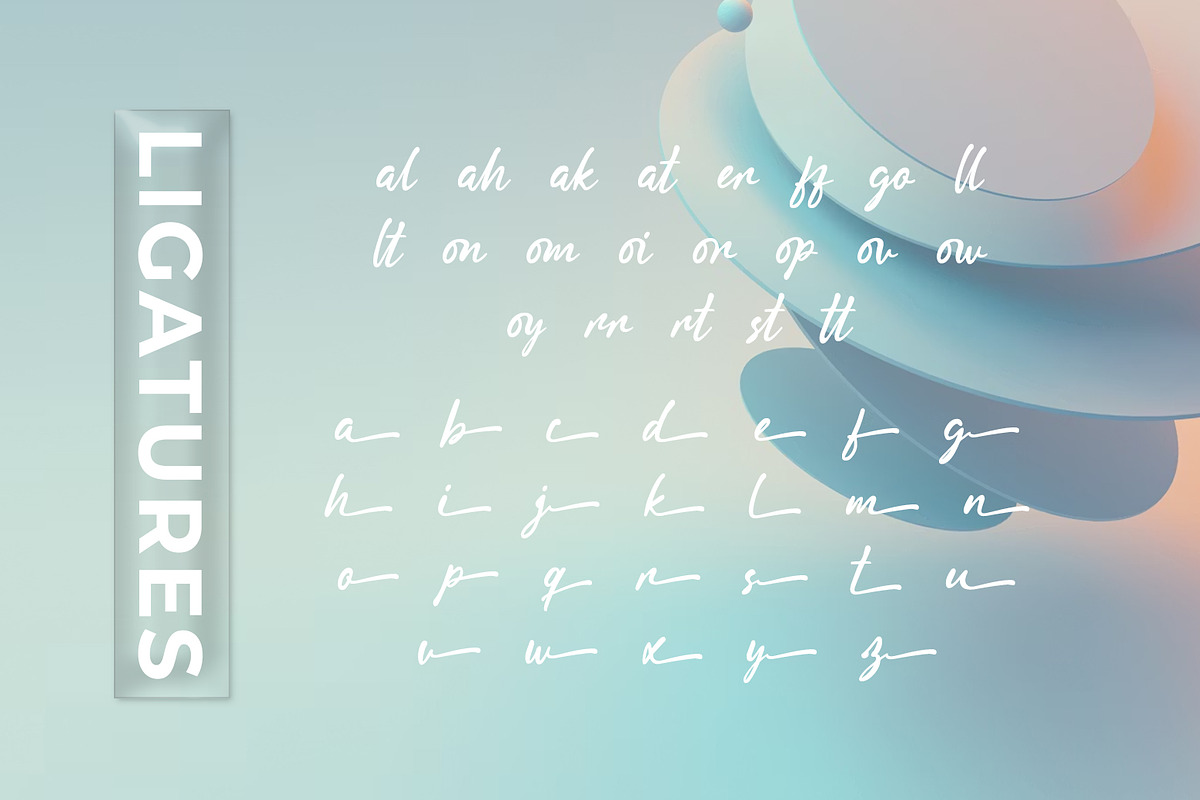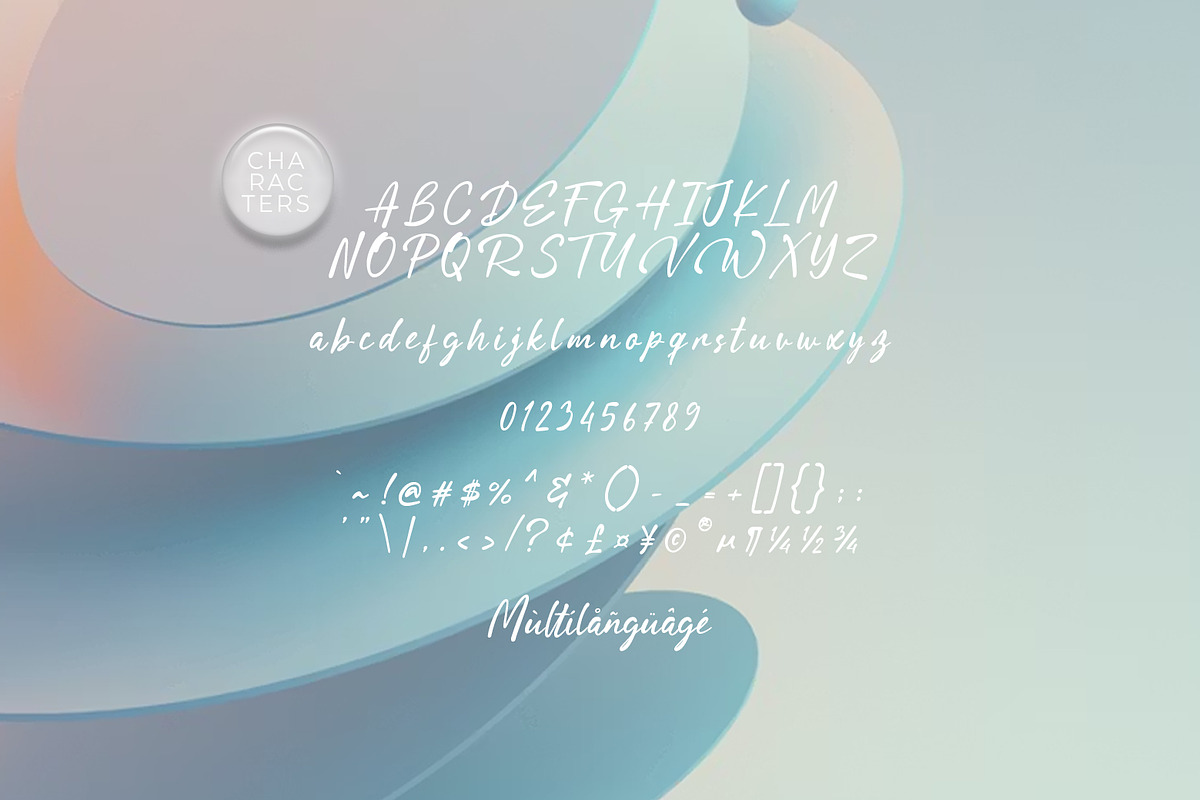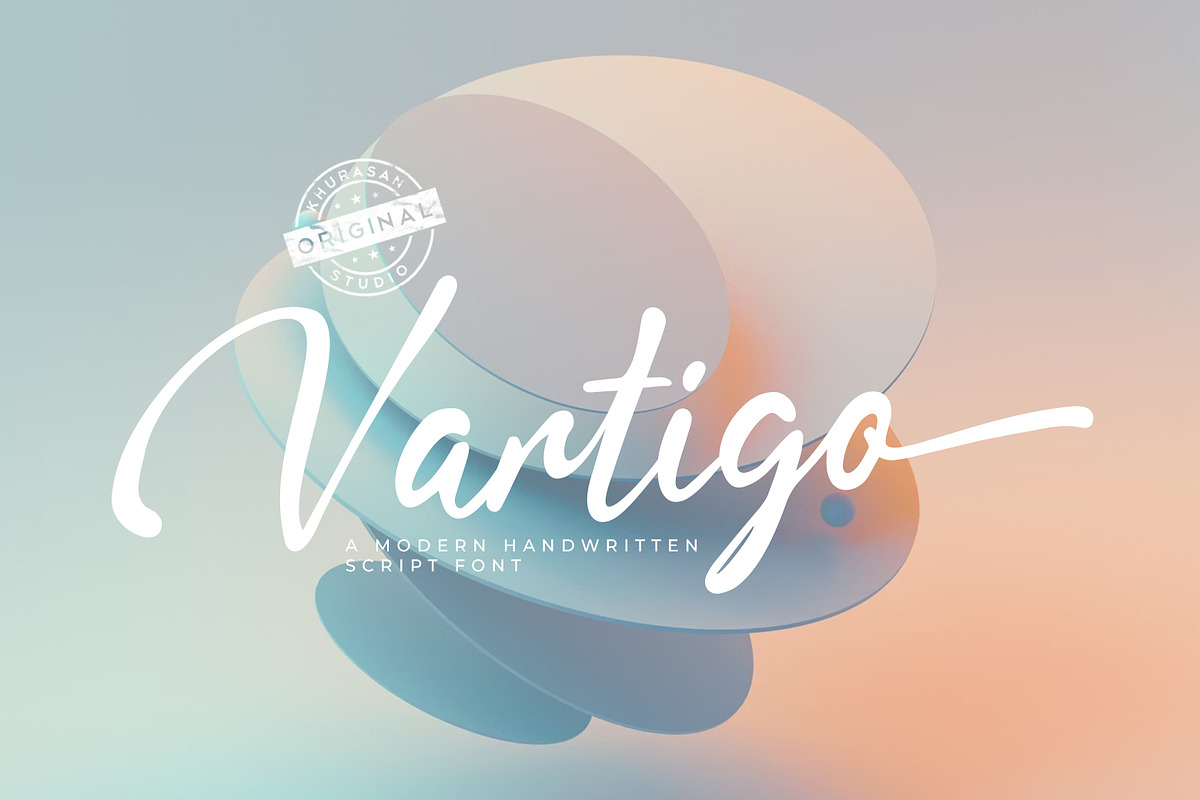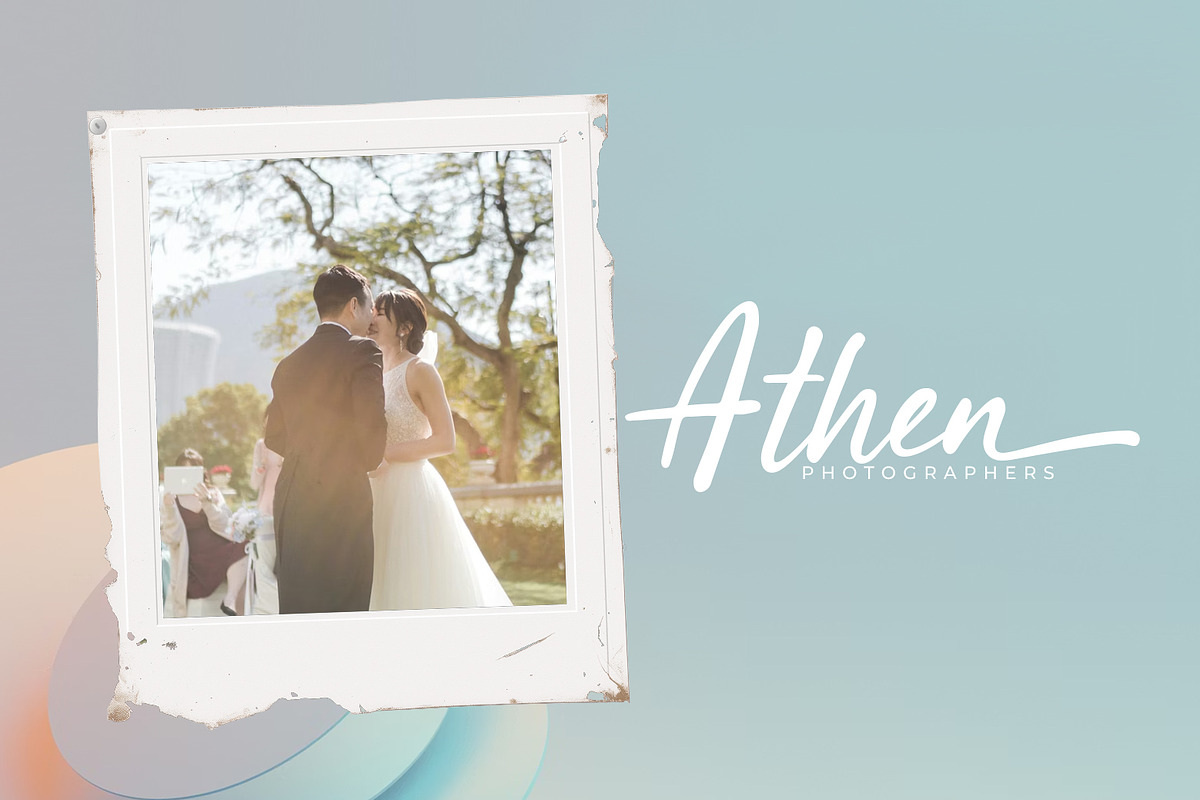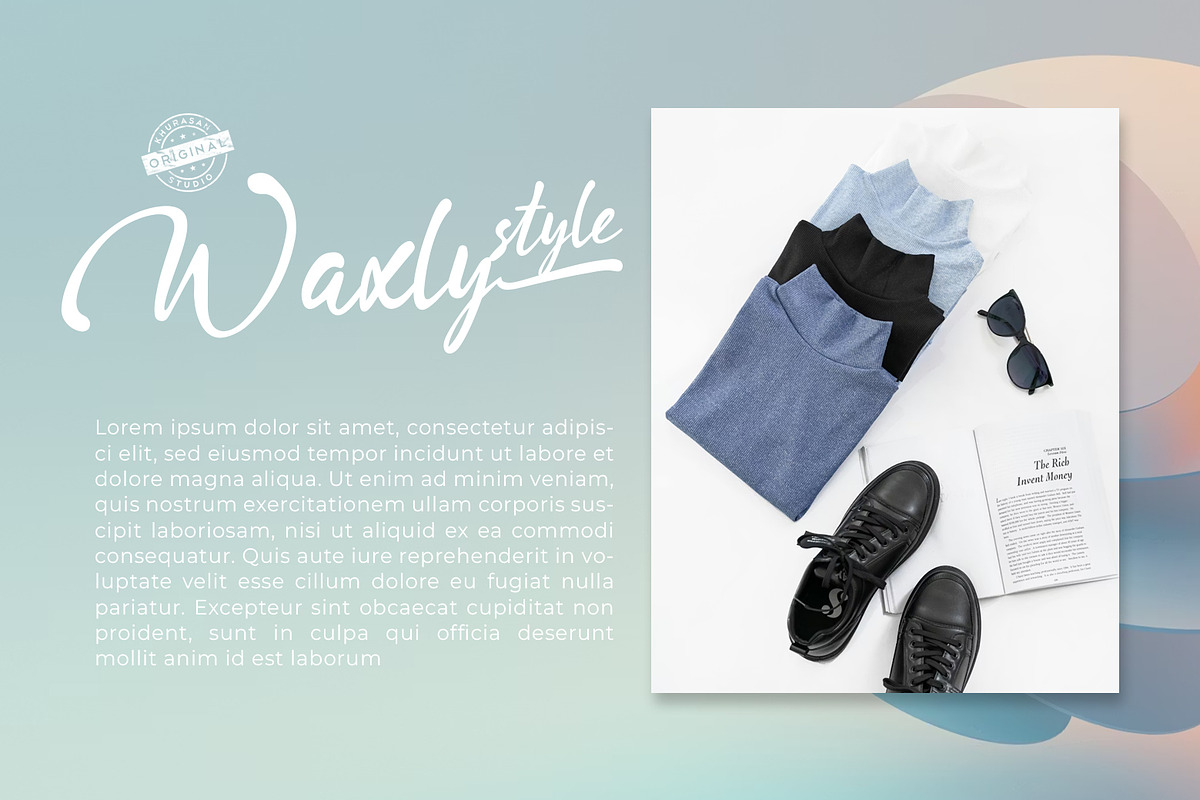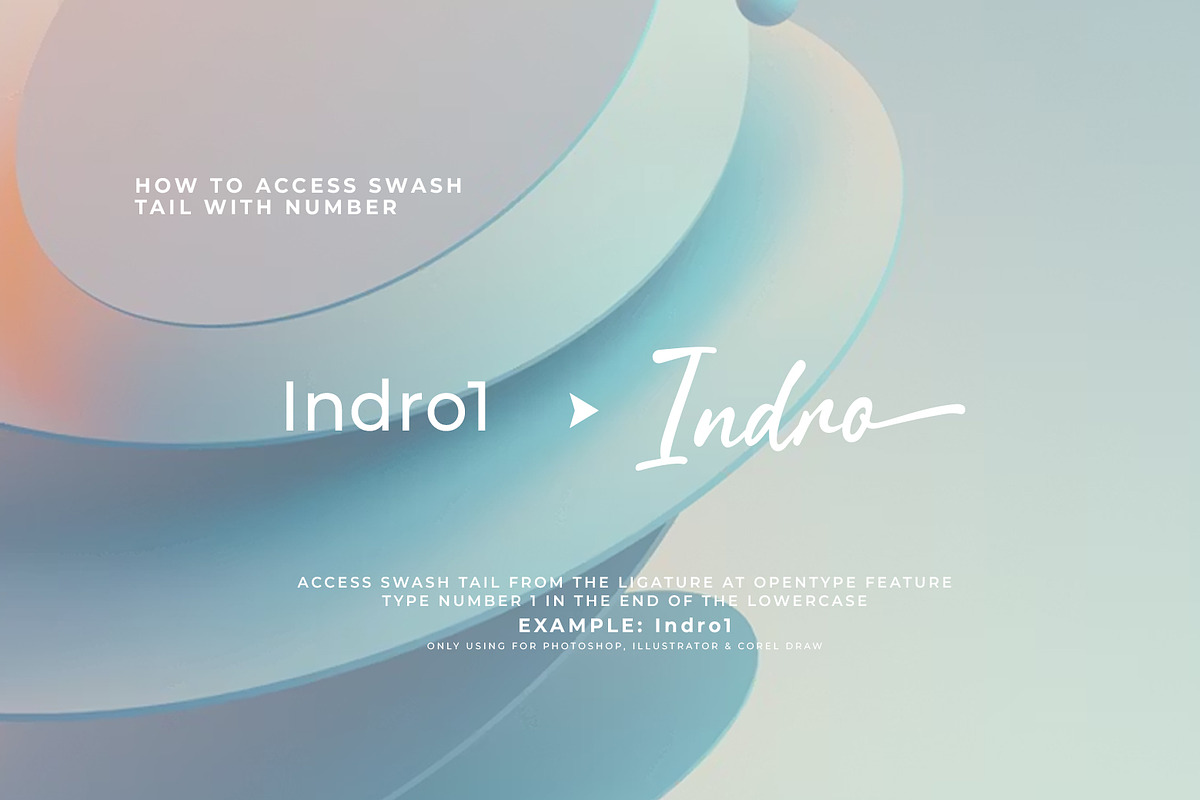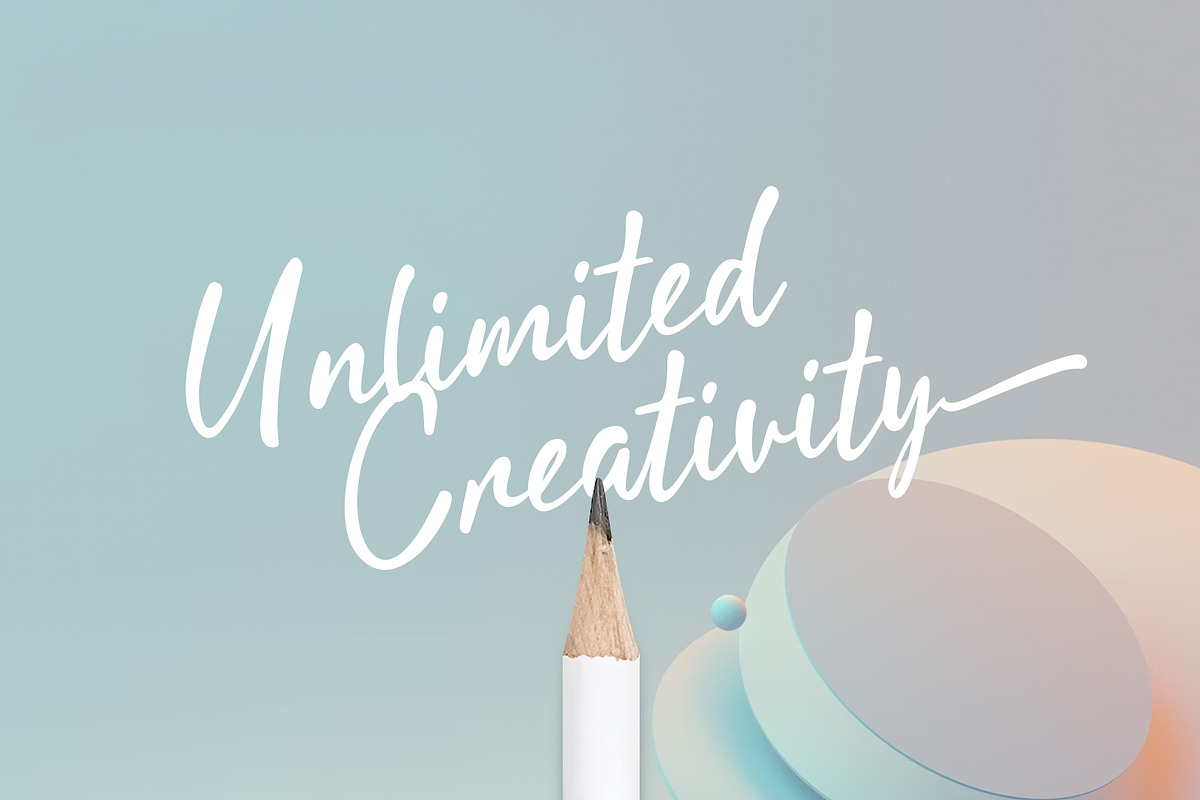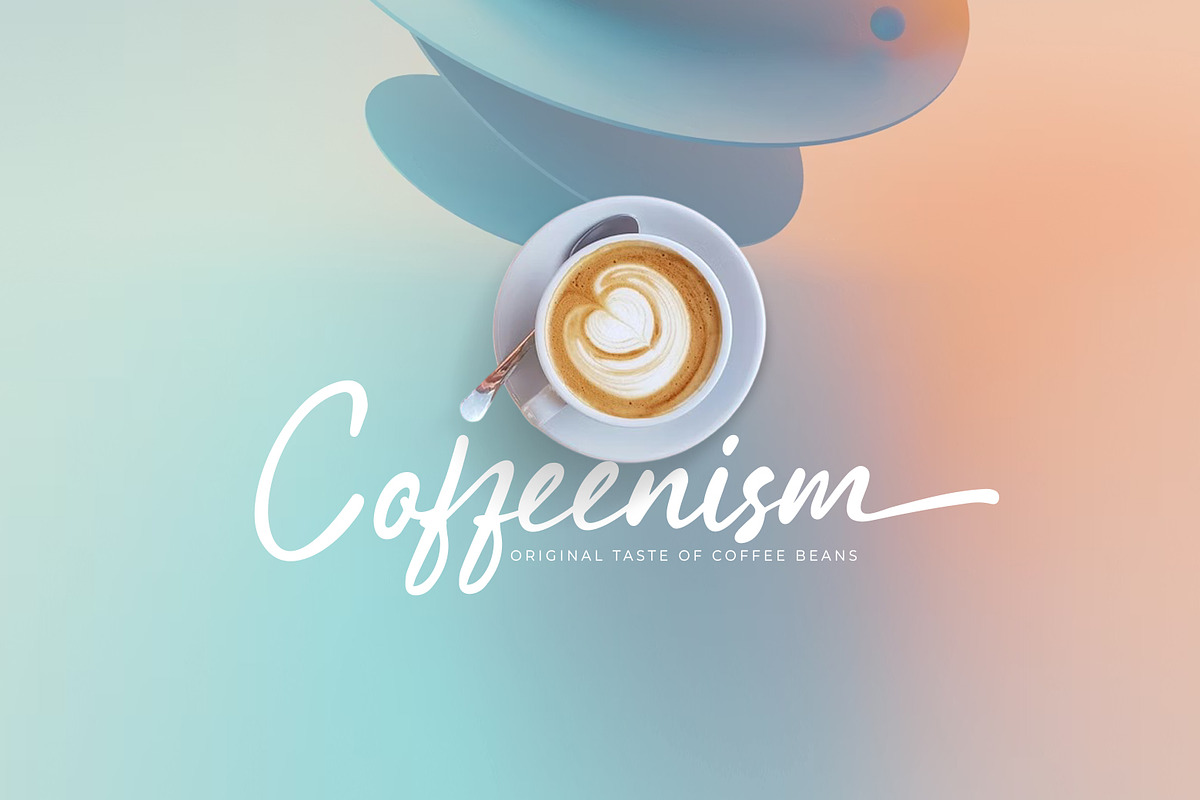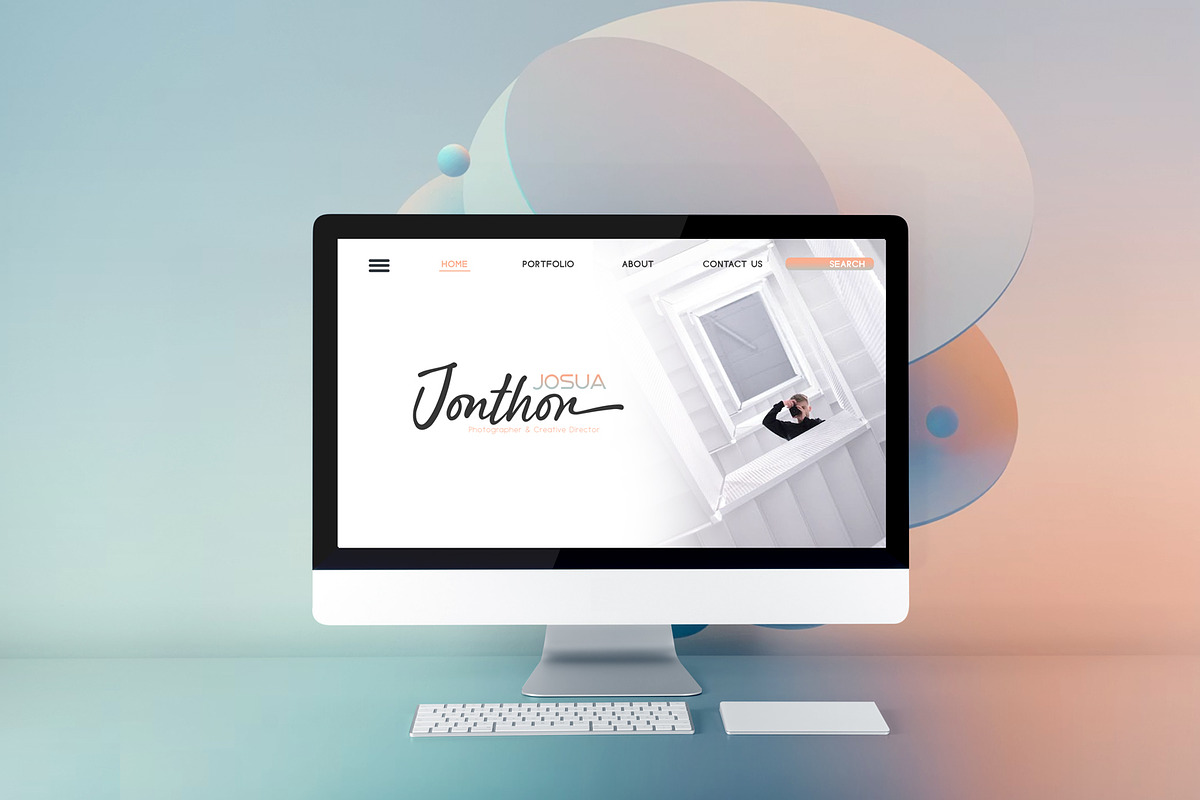
Vartigo Script
Vartigo is a script handwriting font with a natural brush effect, designed to capture the beauty of real hand-lettering. Every stroke feels alive — smooth, expressive, and full of personality. It delivers an authentic handwritten charm that makes your designs feel warm, stylish, and premium.
Perfect for logos, branding, product packaging, quotes, social media posts, wedding designs, and creative projects, Vartigo adds a personal and artistic touch that instantly stands out. Its flowing connections and dynamic brush texture create a sense of movement and emotion, making your text feel human and memorable.